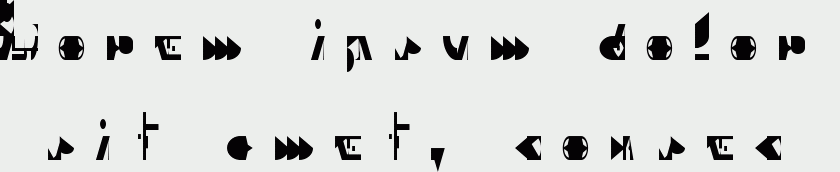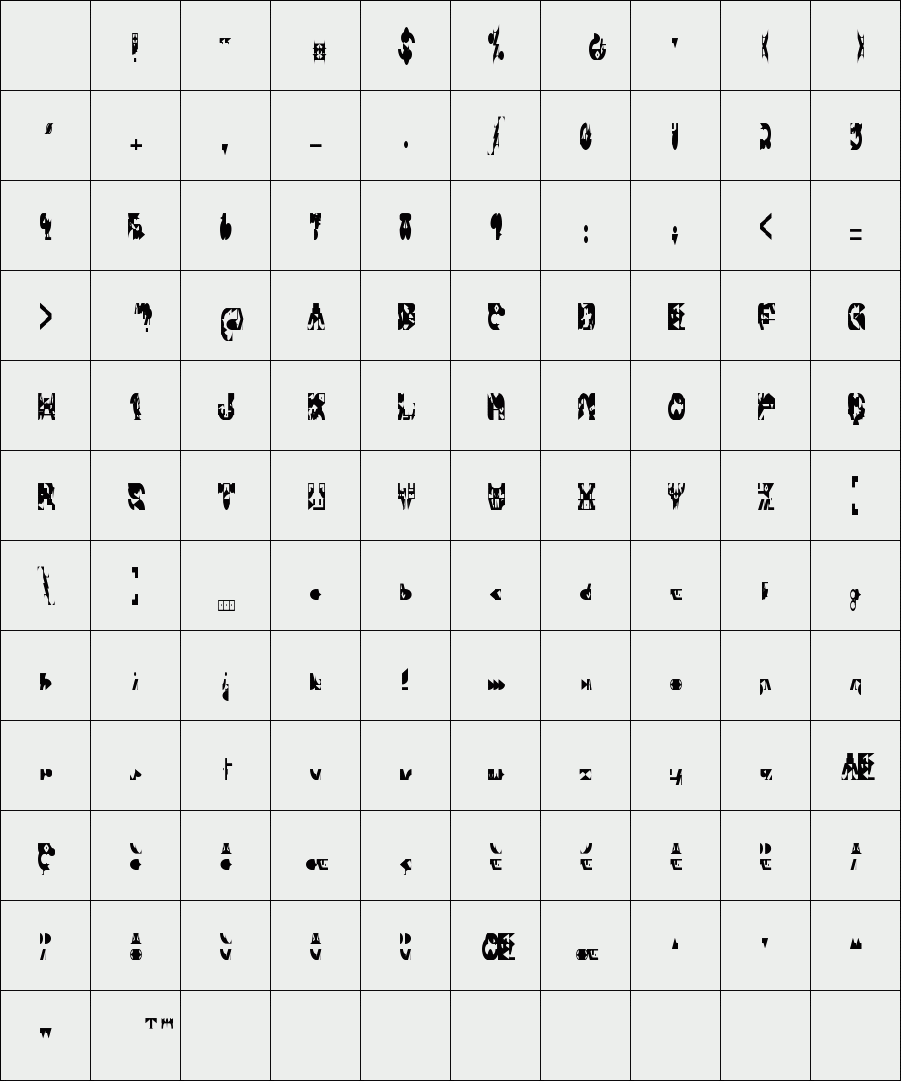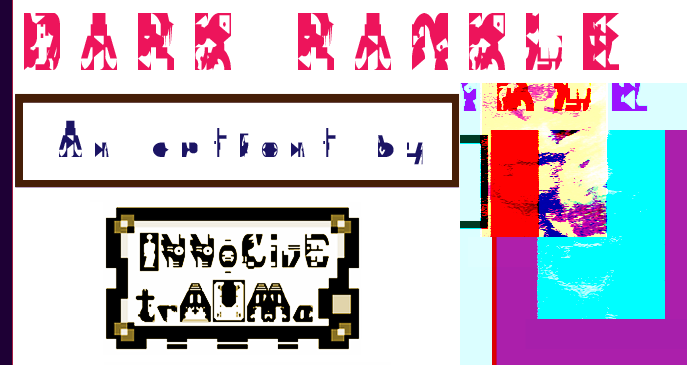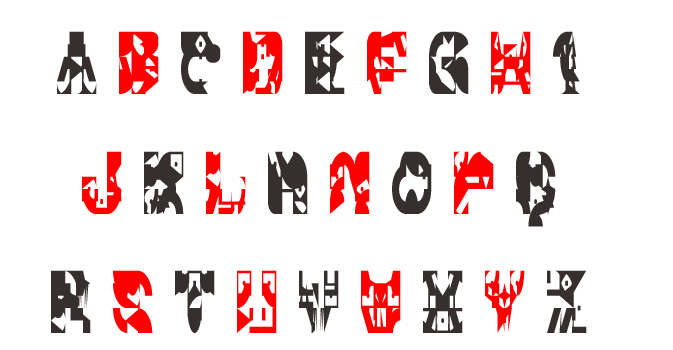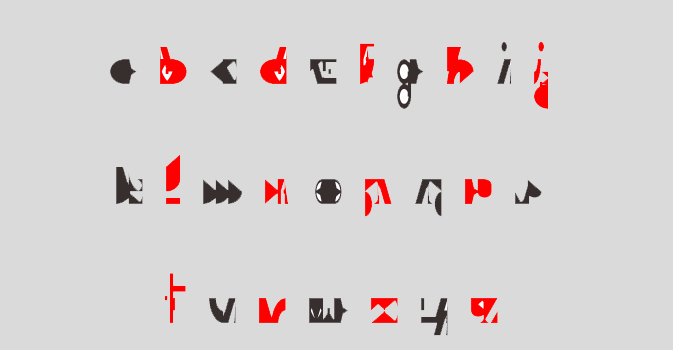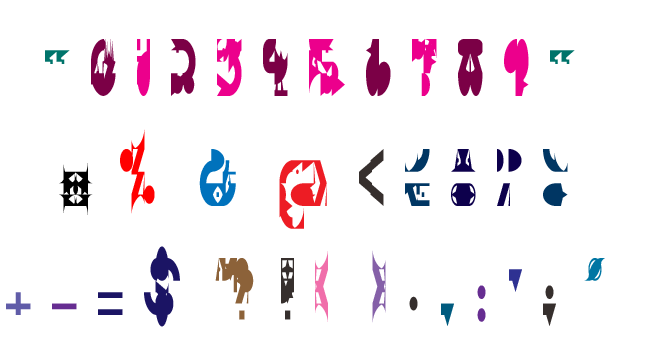
trAUMa 113 / Dark Rankle
"Dark Rankle", like all the "trAUMa" series, works at the frontier between Art & Type Design, Figuration & Abstraction, each font is a comprehensive world in which every glyph is a "living" entity. But put together they can produce your messages in the most accurate way.